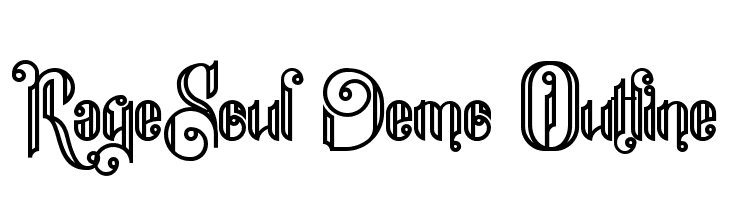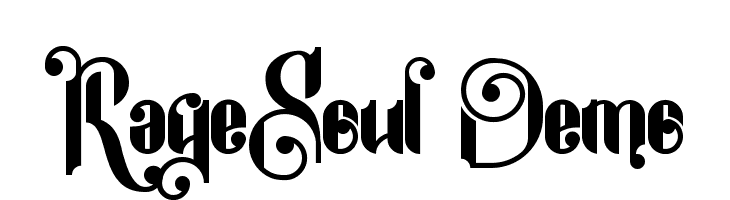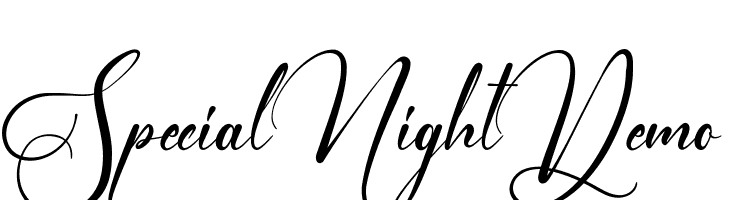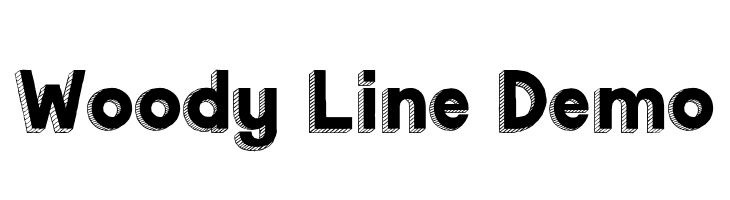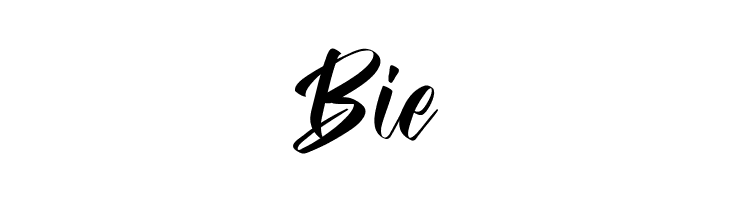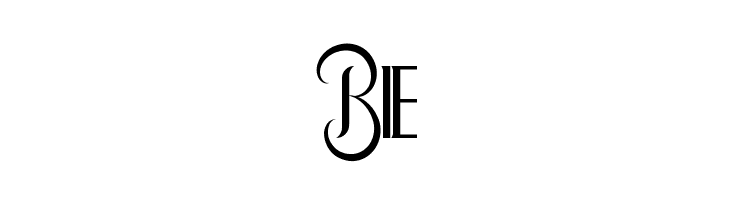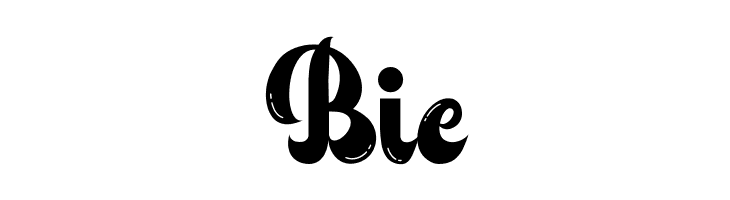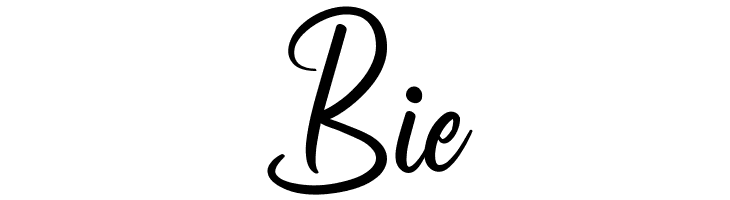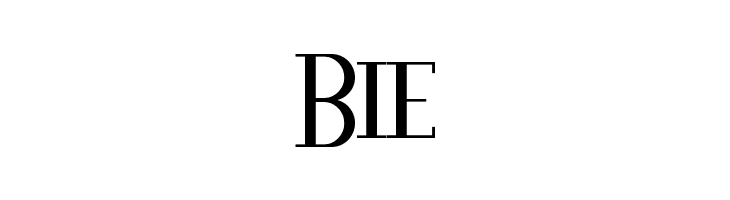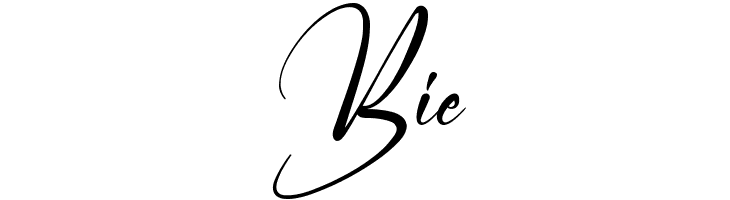
A bold, flowing script font with interconnected letters and expressive strokes.
A decorative font with elegant swashes and modern flair.
A dynamic and expressive handwritten script font with fluid, cursive letterforms.
A bold, playful font with a unique striped pattern and three-dimensional effect.
A playful, bold font with rounded, decorative letterforms.
An ornate, decorative outline font with elegant swirls and loops.
A bold, decorative font with intricate flourishes and high contrast.
A dynamic and elegant script font with flowing, slanted letterforms.
A classic serif font with high contrast and elegant, elongated letterforms.
An elegant and flowing script font with intricate curves and swashes.